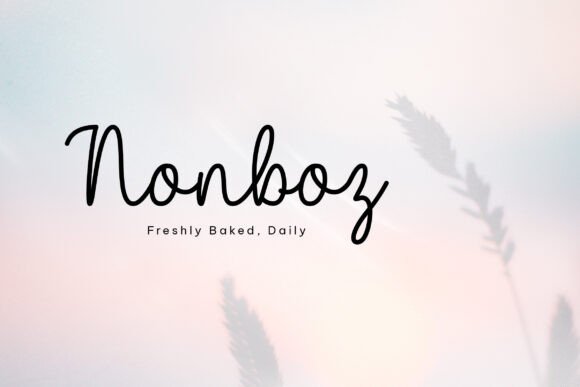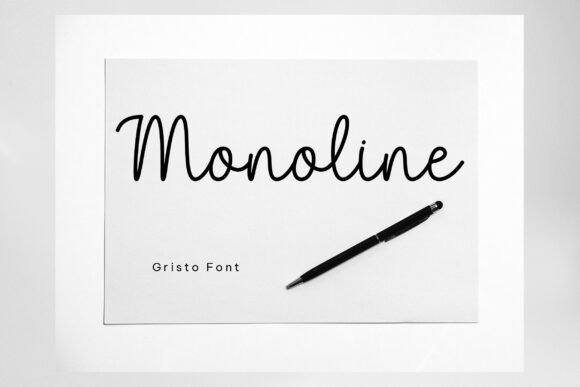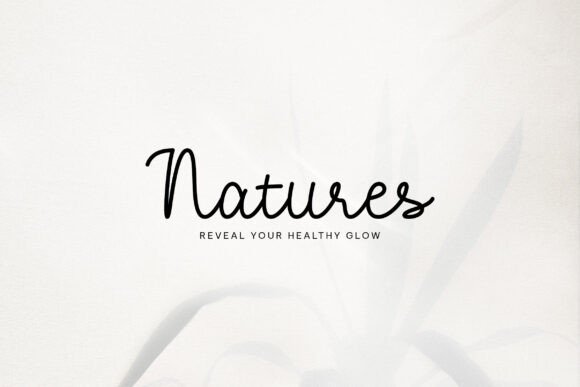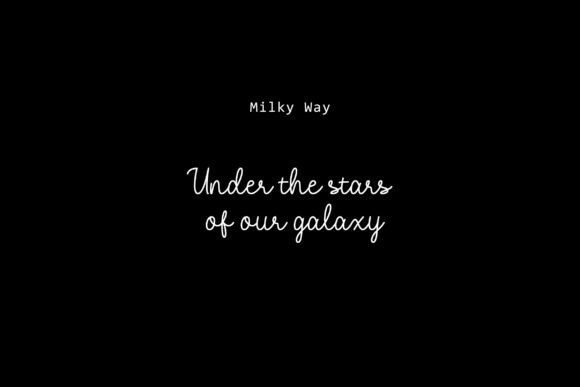
Introduction to Gristo Font
Have you ever found yourself stuck in a design rut, struggling to find the perfect font to elevate your creative project? You’ve spent hours browsing through design resources, only to settle for a font that’s just ‘good enough.’ But what if you could find a font that not only meets your expectations but exceeds them?
Enter the Gristo Font, a stunning monoline font that’s taking the design world by storm. With its clean and modern design, Gristo Font is the perfect addition to any high-quality design project. Its uniform thickness and minimalist aesthetic make it an excellent choice for designers looking to create a cohesive and professional appearance.
Key Features of Gristo Font
- Designed with a unique, modern aesthetic, perfect for adding a touch of sophistication to creative projects.
Honest Review: Gristo Font
As a designer, I’m always on the lookout for high-quality design resources to elevate my creative projects. Recently, I had the chance to try out the Gristo Font, and I must say it’s been a game-changer for my designs.
- ✨ The Gristo Font offers a wide range of unique and stylish characters that can be used for various design purposes.
- ✨ One of the standout features of the Gristo Font is its transparent background, allowing for seamless integration with any design element.
However, I did encounter some limitations with the font.
Overall, I’m impressed with the Gristo Font’s versatility and high quality. While it has some limitations, it’s an excellent choice for designers working on creative projects. I’d definitely recommend it to anyone looking for a unique and stylish font to elevate their designs.
Gristo Font is ideal for creative projects such as graphic design, digital art, and branding materials. It’s also suitable for presentations, brochures, and other marketing materials. With its transparent background, you can easily place it over images or other design elements.
To get the most out of Gristo Font, experiment with different font sizes, colors, and combinations. You can also pair it with other high-quality fonts to create a unique design. Ensure the font is properly scaled and aligned to maintain its clarity and readability.
Alternatives to Gristo Font
Open Sans is a high-quality, modern sans-serif font ideal for creative projects that require a clean and professional look. It’s free to download and offers a transparent background, making it perfect for designers who want a versatile font for their design resource.
When to use: Open Sans is suitable for digital applications, such as websites, mobile apps, and social media platforms. Its clean and simple design makes it an excellent choice for corporate branding and marketing materials.
Comparison to Gristo Font: While Gristo Font has a unique, handwritten feel, Open Sans offers a more traditional and modern look. Open Sans is a better choice for projects that require a clean and professional aesthetic, whereas Gristo Font is ideal for creative projects that need a more artistic touch.